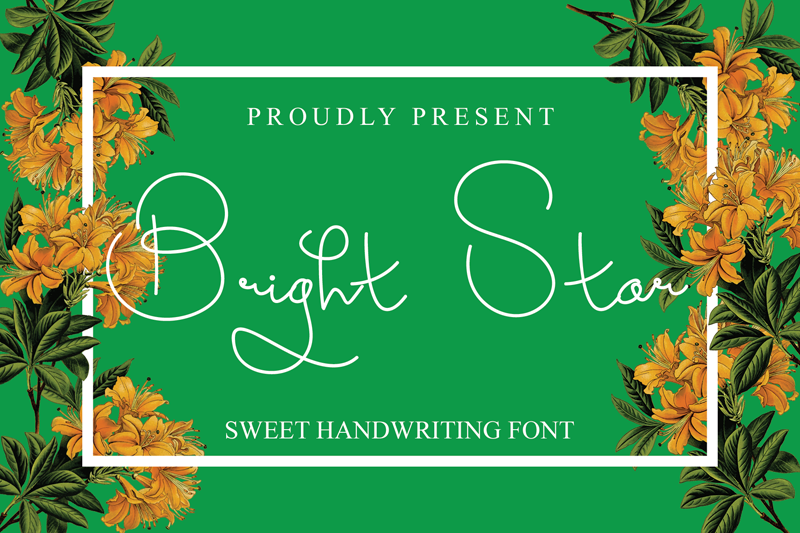
Preview and download Bright Star Font. Created by Erik Luluk in Script Handwritten styles with Free for personal use license.
Bright Star is a thin lettered and cursive handwritten font. Masterfully designed to become a true favorite, this font has the potential to bring each of your creative ideas to the highest level! Attention : Bright Star handwriting Font is prohibited to use this font for commercial purposes or for profit without the permission of the author/admin, without being known to use this font without permission, will be subject to sanctions 5x the specified price. This font is used only for demos (Demo license) If you want to use this font for commercial use please contact email: erikluluk0@gmail.com or click the link below: https://www.creativefabrica.com/product/bright-star-4/ref/745146/ If you want to see more other fonts, please click:https://www.creativefabrica.com/designer/erik-studio/ref/745146/ Any donations are very appreciated. Paypal account for donation: https://paypal.me/erikstudio1 thanks. |